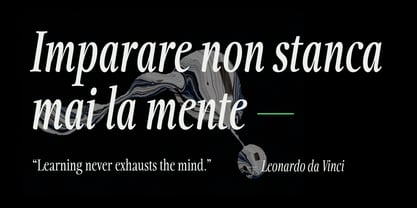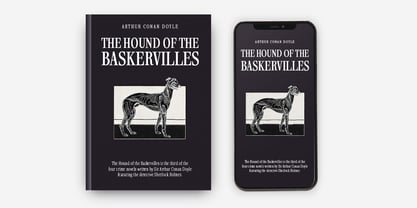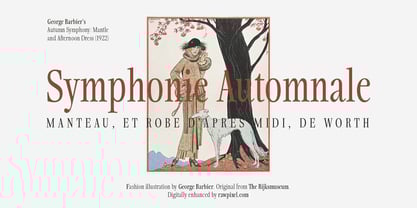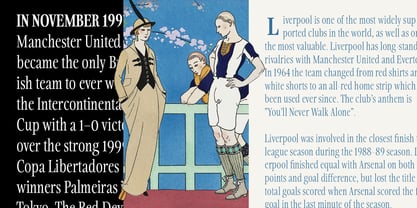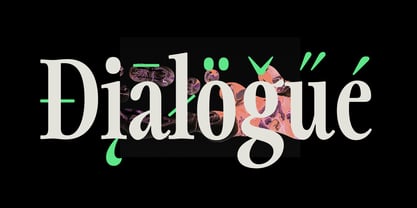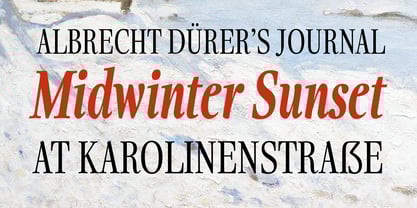
Fionas
by Nasir Udin
Fionas Font Family was designed by Nasir Udin and published by Nasir Udin. Fionas contains 14 styles family package options.
Fionas is a condensed serif typeface inspired by retro 80’s-magazines’ typography, mixed with modern appeal to blend with modern needs.
Ranging from light to heavy with italics, Fionas offers many possibilities to be applied in many graphic or editorial projects. The lighter weights are suitable for short paragraph, and the heavier weights are perfect for headlines, perfectly suitable for display purpose such as book covers, web headlines, branding, editorial, etc.
Fionas has extended latin character set that supports 200+ latin-based languages.
About Nasir Udin
Before he got into type design, he had designed travel posters under the Vectro label. His illustrative style is an impression of similar posters from the mid 20th century. As a designer, he enjoy looking to both the past and the future for inspiration. That's why he love to blend a retro style with a futuristic concept. He started type design on 2016 as his side project, before he take it seriously. You can follow @studio.nasir on Instagram, he loves to capture a lettering on old buildings (Dutch, Chinese, Arabic, blend with the local Javanese).